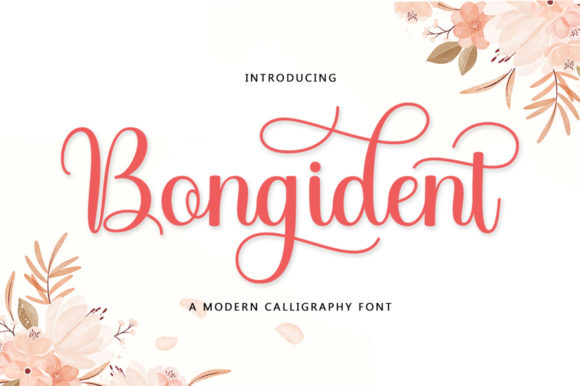
The Magical World of Bongident Script Font
Have you ever been in the middle of a design project, and suddenly, you’re stuck on finding the perfect font? I recall a particularly frustrating experience while working on a wedding invitation design. My client wanted something elegant, yet playful, and I was determined to deliver. That’s when I stumbled upon Bongident Script Font, and it completely transformed my design. In this article, we’ll dive into the charming world of Bongident Script, exploring its features, uses, and some amazing alternatives.
A Personal Review of Bongident Script
So, what makes Bongident Script so special? Let’s take a closer look.
What I Love About Bongident Script ✨
- 💃 Charming, playful characters that seem to dance along the baseline, adding a touch of elegance to any design.
- 🔍 PUA encoded, making it easy to access all the amazing glyphs and ligatures.
- 🎨 Highly versatile, perfect for a wide range of creative projects, from wedding invitations to branding and packaging.
- 👍 Excellent for adding a personal touch to your designs, making them stand out from the crowd.
While Bongident Script is an amazing font, there are a few things to keep in mind:
- 🤔 Some users might find the font a bit too playful for very formal or corporate designs.
- ⚠️ As with any script font, it’s essential to use it in a way that doesn’t overpower the overall design.
The Designer Inspiration Behind Bongident Script
The story behind Bongident Script is one of passion and creativity. According to the designer, the font was inspired by the beauty of handwritten scripts and the need for a more elegant, yet playful, font in the design world. With Bongident Script, the designer aimed to create a font that would add a touch of whimsy and charm to any design.
| Font Name | Bongident Script Font |
| Author | Ahmad Type |
Q: What is PUA encoding, and how does it benefit Bongident Script?
A: PUA (Private Use Area) encoding allows designers to access a wide range of glyphs and ligatures, making it easier to create unique and creative designs with Bongident Script.
Q: Is Bongident Script suitable for body text?
A: While Bongident Script is an amazing font, it’s best suited for headlines, titles, and short paragraphs. For body text, a more legible font might be a better choice.